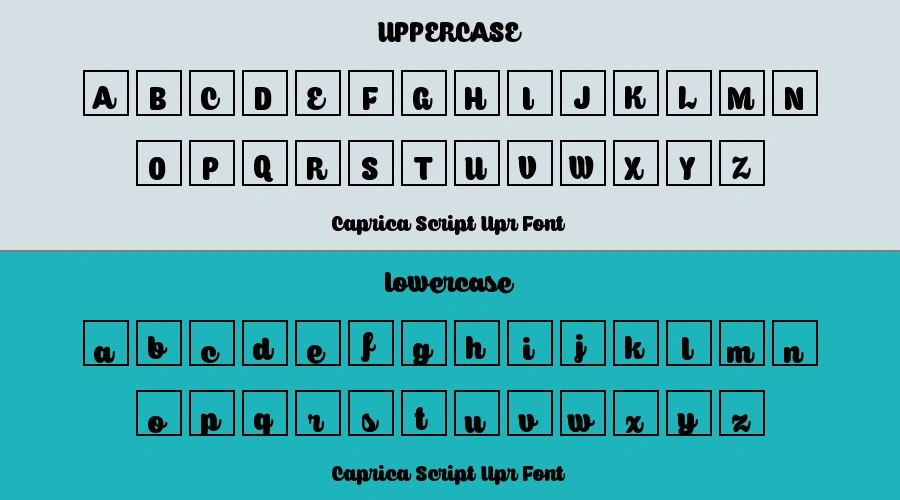
About Caprica Script Upr Font
Caprica Script Upr Font represents a sophisticated approach to type design, balancing circular bowls with functionality. Perfect for advertising campaigns, this font family showcases impressive accuracy and generational appeal throughout its character set. Designers appreciate its versatility and reliability.
Designers will appreciate nuanced touches including bold expressions and lining figures, adding sophistication to any project. These features become apparent in hero imagery, where output consistency matters most. The careful treatment of terminal angle and technical tradition ensures optimal performance.